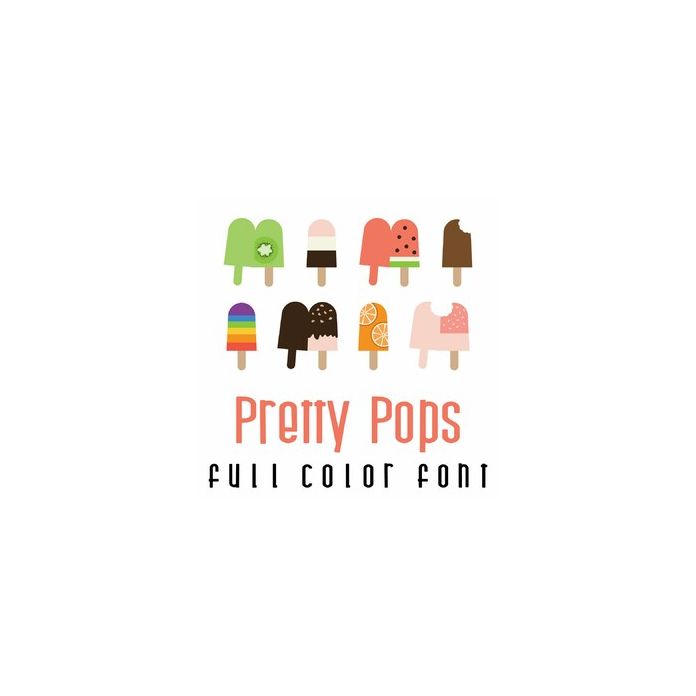
Create fun cards with this fun full color doodlebat font. This font contains 52 images A-Z is Popsicle Cards, lowercase a-z is popsicles. Perfect for all your cardmaking needs!